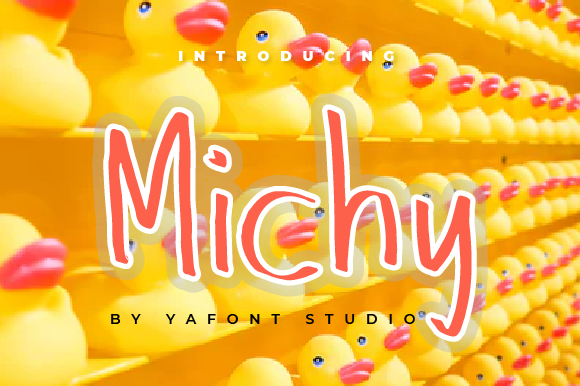
Introduction to Michy Font Font
Fonts play a crucial role in design, and the Michy Font font is a typeface that brings both character and versatility to any project. Whether you’re working on a branding project, a website, or a print design, the Michy Font font offers a unique style that can elevate your work.
Michy is a simple and natural handwritten font.
It is suitable for any branding, product packaging, invitation, quote, t-shirt, label, poster, logo that you wish to create .
Key Features of Michy Font Font
Why Choose Michy Font Font?
The Michy Font font is more than just a typeface – it’s a design tool that helps you communicate your message with style and clarity. Its unique character set and versatile design make it suitable for a wide range of applications, from elegant invitations to bold headlines.
With its carefully crafted letterforms and balanced proportions, the Michy Font font ensures readability and visual appeal across all mediums.
What makes Michy Font font special?
The Michy Font font stands out with its unique design, exceptional readability, and versatility across various design applications.